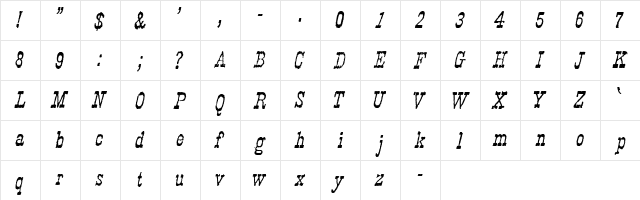
Faywood Italic WF Regular
| Designer | Walden Font Co. |
Design Context for Faywood Italic WF Typeface
Faywood Italic WF taps into classic Western woodtype traditions — bold, characterful, and impossible to ignore. The dynamic lean of this cut emphasises speed and emphasis in any layout.
Perfect for barbecue restaurants, country music branding, vintage poster design, and rustic packaging.
Font Pairing: Combine Faywood Italic WF with a simple slab or neutral sans — period-accurate companions reinforce the vintage feel without competing for attention.
Pro Tip: Pair Faywood Italic WF with aged textures or distressed backgrounds to amplify its vintage personality.